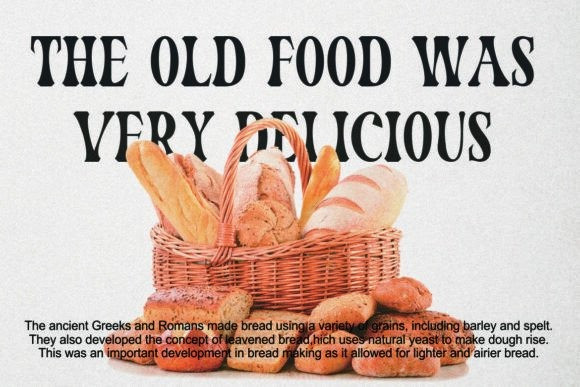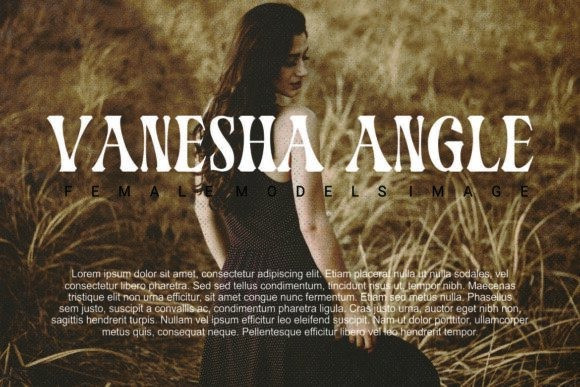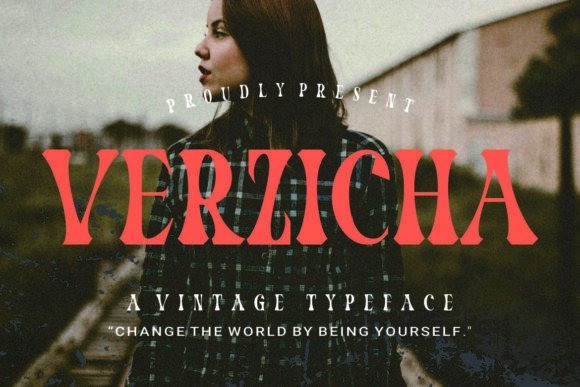
Verzicha Font
Verzicha Font is a bold vintage serif font with high contrast and dramatic curves that channel classic editorial style. Ideal for impactful headlines, poster design, and branding that seeks a nostalgic yet stylish vibe, Verzicha adds presence and confidence to your visual storytelling.